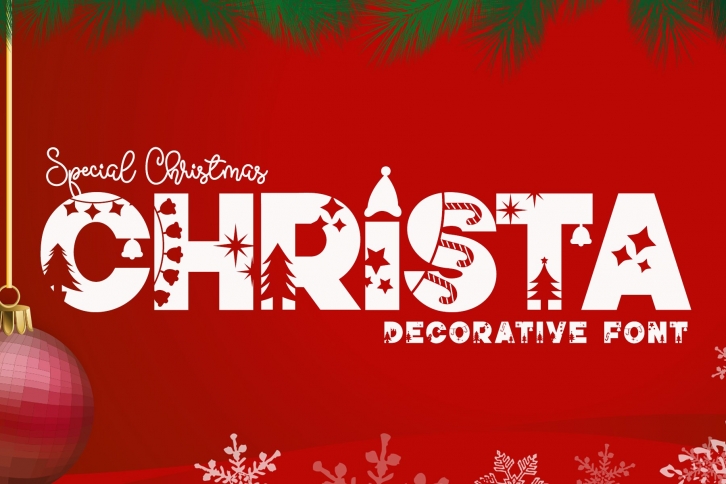
Christa is a gorgeous font that was realeased on October 7, 2021. The font can be used in many style contexts and design environments. Perfect for invitations, magazines, websites, logos, and more! It was designed by Airotype and the file size is 19.52 MB. Thanks for checking out this font!